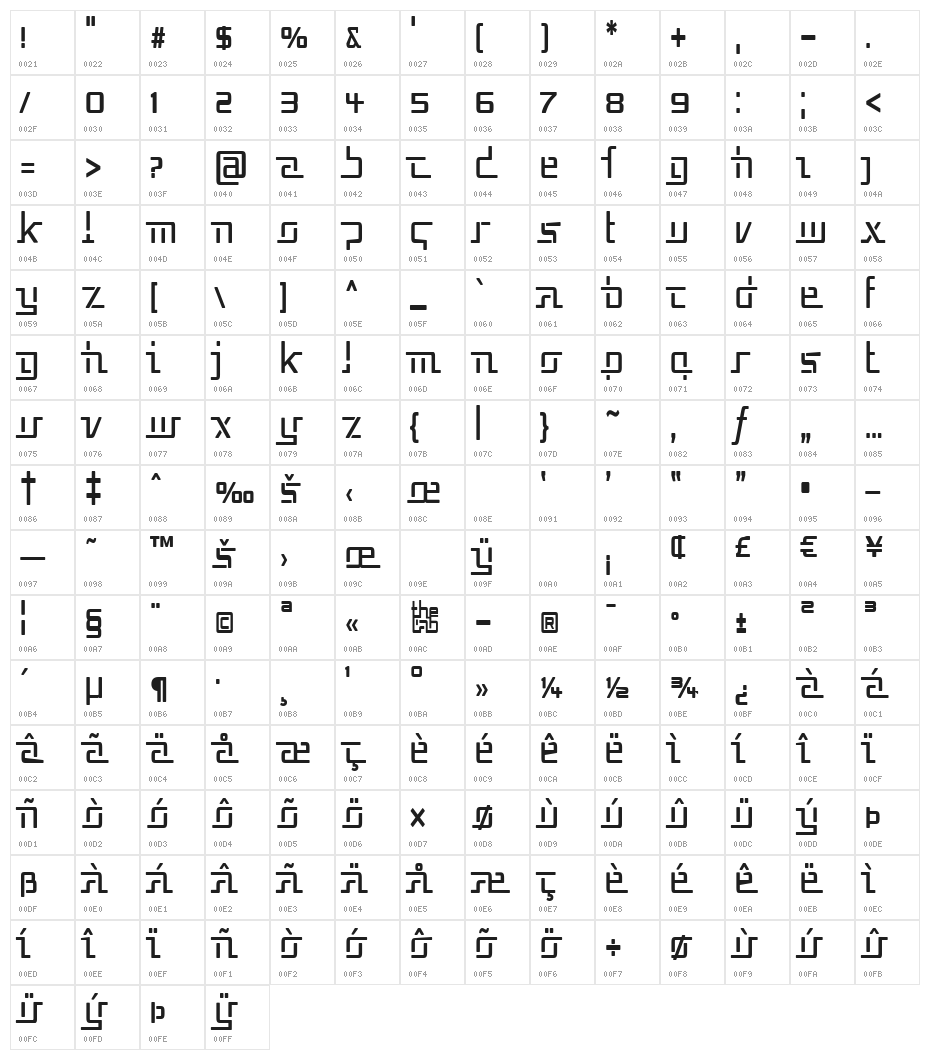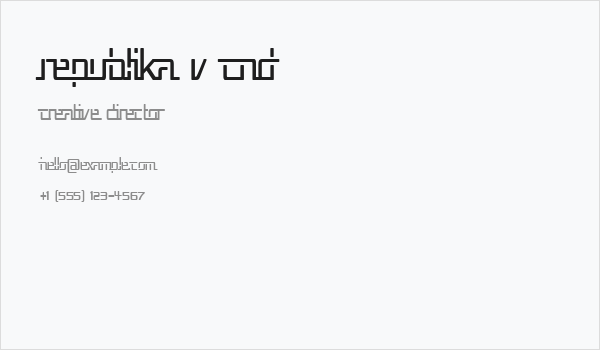
Republika V Cnd Font
Republika V Cnd Description
This font features a modern, geometric design with a distinct, futuristic flair. The characters are constructed with clean, straight lines and sharp angles, creating a sense of precision and clarity. The uppercase and lowercase letters share a consistent height, contributing to a uniform appearance. The numerals and special characters maintain the same geometric style, ensuring cohesion across all elements. This font's unique structure makes it stand out, offering a bold and innovative look that is both eye-catching and functional.